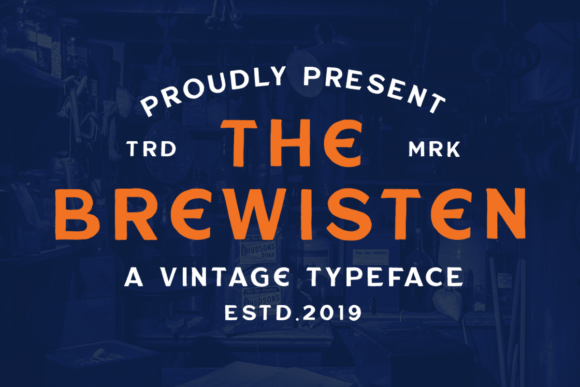
Brewisten Font: Elevate Your Design with Elegance and Versatility
In the world of typography, fonts play a crucial role in conveying messages, expressing emotions, and creating lasting impressions. Among the numerous fonts available, Brewisten stands out as a distinct, elegant sans serif that seamlessly blends traditional influences into a contemporary aesthetic. With its well-balanced Latin details and distinctive contrasts, Brewisten offers an exquisite, yet subtle look and maximum versatility, making it an ideal choice for designers and brands seeking to elevate their visual identity.
The Story Behind Brewisten
Brewisten’s design is rooted in the pursuit of creating a font that not only pays homage to traditional typography but also meets the demands of modern design. Its elegant sans serif style ensures that it remains approachable and clean, while the incorporation of distinctive contrasts adds a layer of sophistication. This balance makes Brewisten a versatile tool for various design applications, from branding and advertising to digital interfaces and print materials.
Key Features of Brewisten
- Distinctive Elegance: Brewisten’s design combines the simplicity of sans serif fonts with elegant strokes that give it a unique personality.
- Traditional Influences: The font integrates traditional typographic elements, ensuring it remains relatable and familiar.
- Contemporary Aesthetic: Its clean lines and well-balanced structure make it perfect for contemporary designs.
- Versatility: Brewisten’s adaptability makes it suitable for a wide range of projects, from digital platforms to print.
Applications of Brewisten
The versatility of Brewisten makes it an excellent choice for various design projects. Here are some of the areas where Brewisten can make a significant impact:
1. Branding and Logo Design
Brewisten’s elegant and subtle design makes it an ideal choice for branding and logo design. Its unique personality can help brands stand out and convey their message with sophistication.
2. Digital Interfaces
In the digital realm, typography plays a crucial role in user experience. Brewisten’s clean and readable design ensures that digital interfaces, such as websites and mobile apps, are not only visually appealing but also user-friendly.
3. Print Materials
Brewisten’s versatility extends to print materials, including brochures, posters, and business cards. Its elegant appearance can elevate any print material, making it more engaging and memorable.
4. Advertising and Marketing
In advertising and marketing, capturing the audience’s attention is paramount. Brewisten’s distinctive contrasts and elegant design make it an effective tool for creating compelling ad campaigns that resonate with the target audience.
Why Choose Brewisten?
With numerous fonts available, why should designers and brands choose Brewisten? Here are some compelling reasons:
1. Uniqueness
Brewisten’s blend of traditional influences and contemporary design makes it unique. It stands out in a sea of fonts, offering a fresh perspective for designers.
2. Versatility
Its adaptability across various design applications makes Brewisten a practical choice. Designers can use it across multiple projects, ensuring consistency in their visual identity.
3. Elegance
Brewisten’s elegant design ensures that it can convey sophisticated messages. Its subtle yet impactful appearance makes it suitable for brands aiming to project a refined image.
4. Readability
Despite its elegance, Brewisten does not compromise on readability. Its well-crafted letters ensure that messages are conveyed clearly and effectively.
Brewisten is more than just a font; it’s a design tool that offers elegance, versatility, and a unique personality. Its blend of traditional influences and contemporary aesthetics makes it a valuable asset for designers and brands seeking to create a lasting impression. Whether it’s for branding, digital interfaces, print materials, or advertising, Brewisten provides the perfect balance of sophistication and subtlety. By choosing Brewisten, designers can elevate their projects, ensuring they stand out in a crowded design landscape.
Embrace the Elegance of Brewisten
Incorporate Brewisten into your design projects and experience the power of elegant typography. With its distinctive contrasts, well-balanced Latin details, and versatile nature, Brewisten is poised to become a go-to font for designers worldwide. Discover the impact that Brewisten can have on your designs and make it a part of your typographic arsenal.